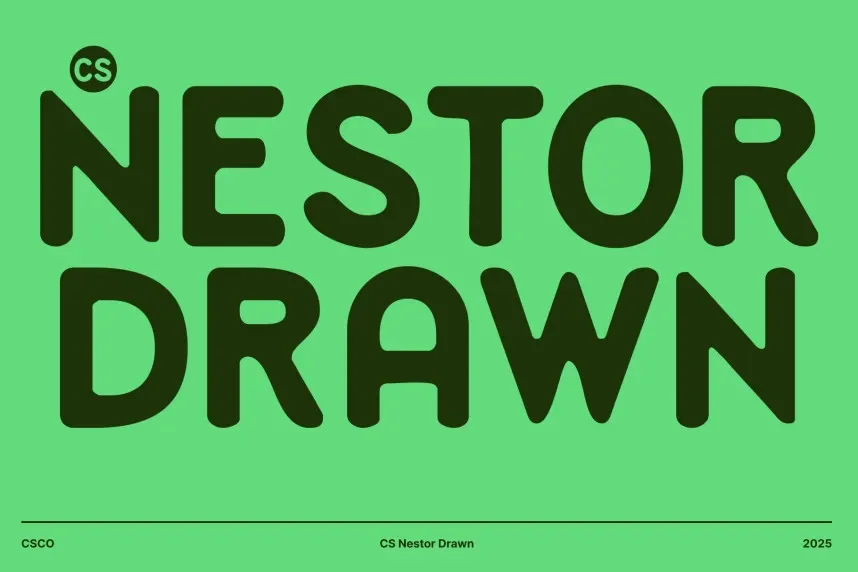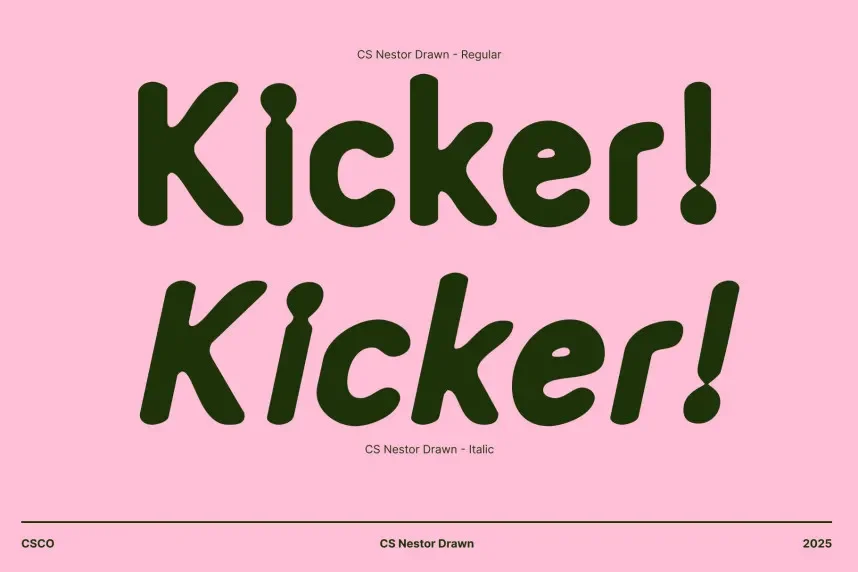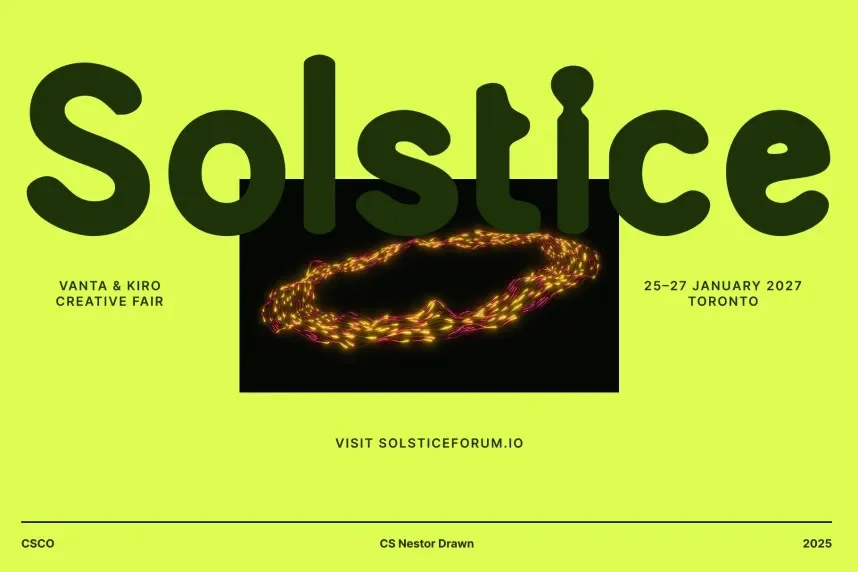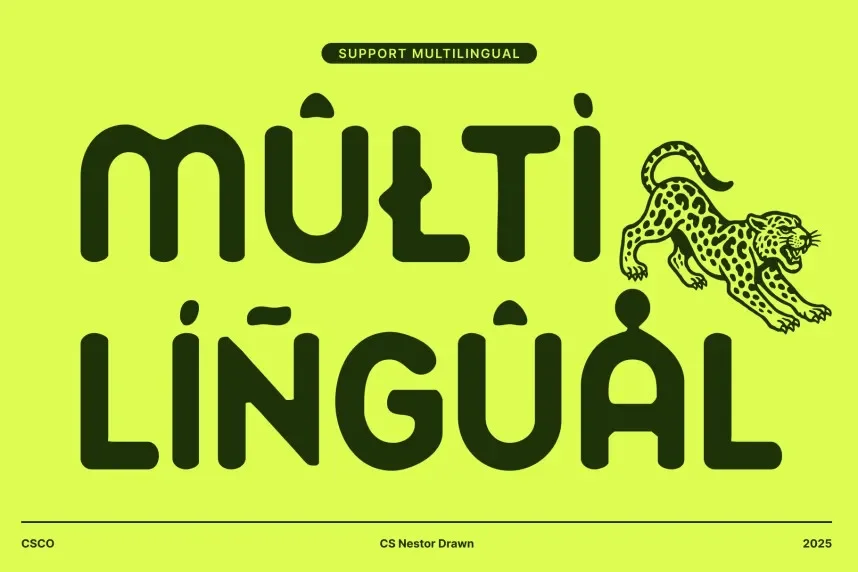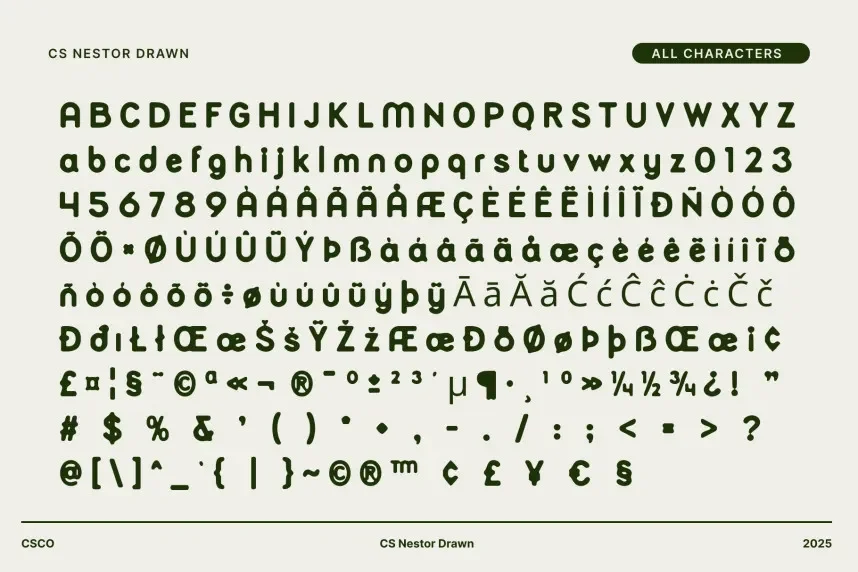
CS Nestor Drawn Font is a dynamic, display font featuring unique letterforms that blend traditional and contemporary styles. Its strong strokes and angular edges give it a sharp, professional look, ideal for business branding, headlines, and logos that need a distinctive personality.